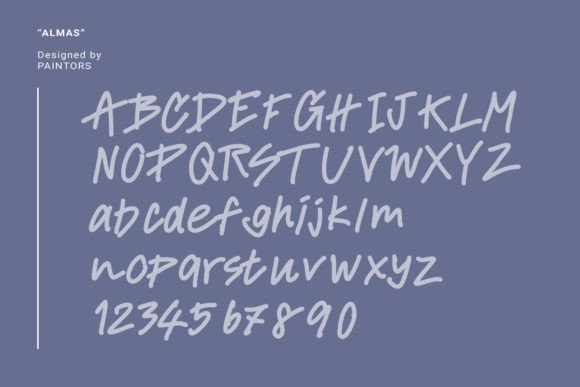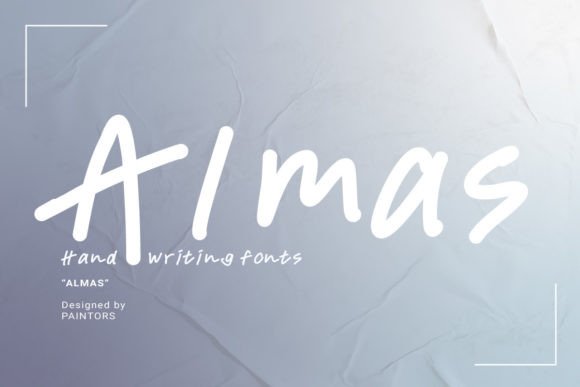
Introduction to Almas Font
Almas sweet and casual handwritten font that exudes warmth and approachability.
Its gentle curves and soft lines create a welcoming tone, making it perfect for heartfelt messages, invitations, and personal touches .
Key Features of Almas Font
Why Choose Almas Font?